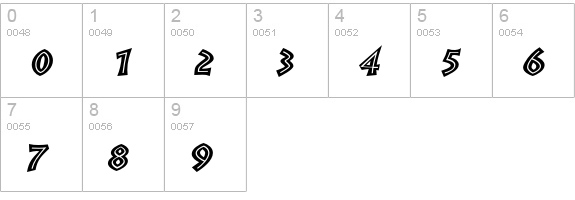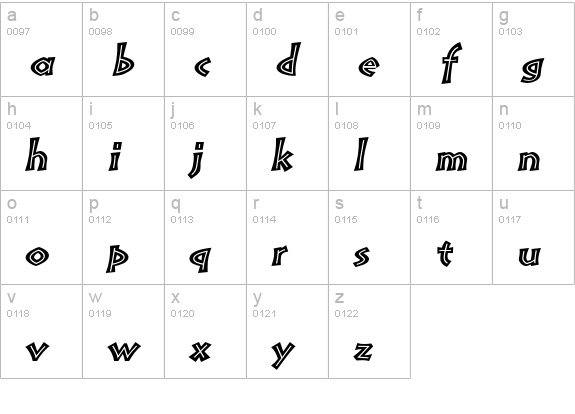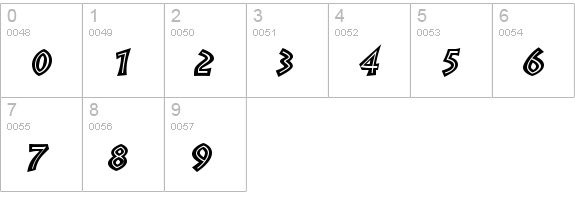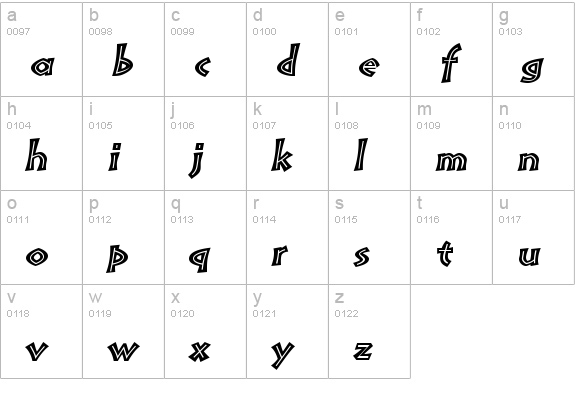
Pompeia Std Inline Italic Font Details
Pompeia Std Inline Italic is a distinctive, italic variant in the Pompeia typeface family \xE2\x80\x94 well suited to design and typography projects.
Pompeia Std Inline Italic is a stylish and modern font that exudes elegance and sophistication. Its italicized inline design adds a touch of flair and uniqueness to any project, making it perfect for branding, logos, and headlines. The flowing curves and smooth lines of Pompeia Std Inline Italic create a sense of movement and energy, drawing the eye and captivating the viewer. And the best part? This stunning font is available for free download at FontsMarket.com. Whether you're a designer looking to elevate your creations or a business owner seeking a distinctive look for your brand, Pompeia Std Inline Italic is the perfect choice. Don't miss out on this opportunity to enhance your projects with this beautiful and versatile font. Download it now and let your creativity shine!